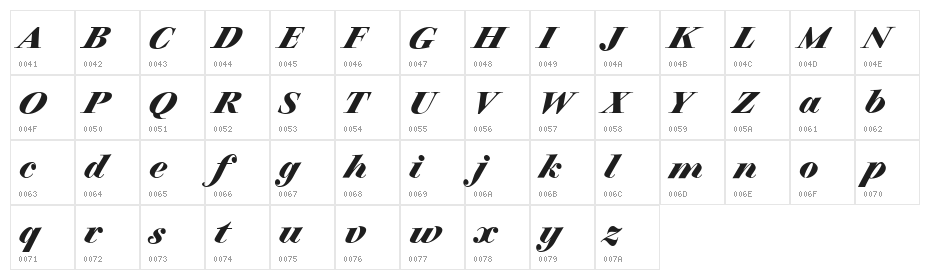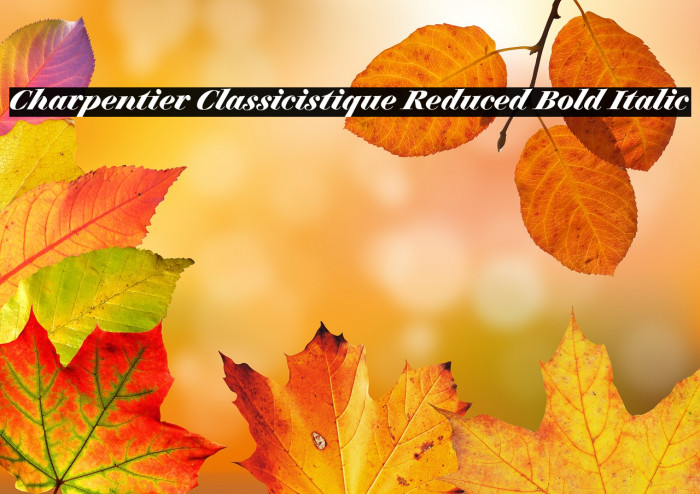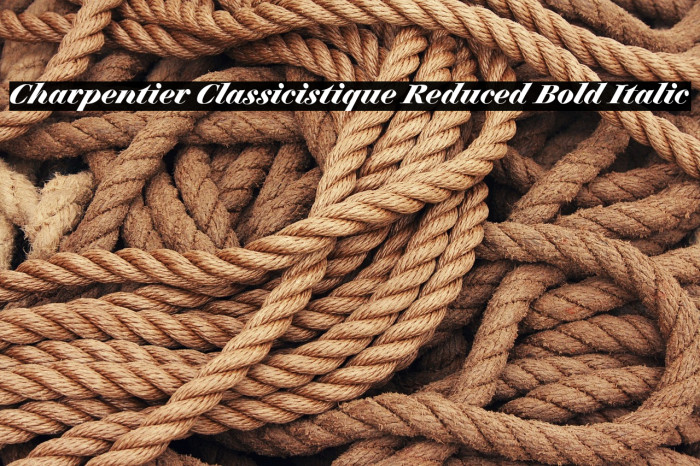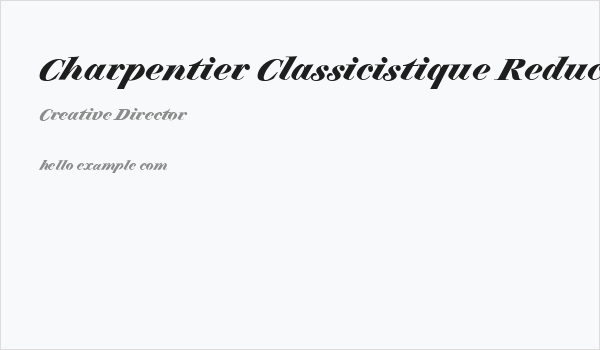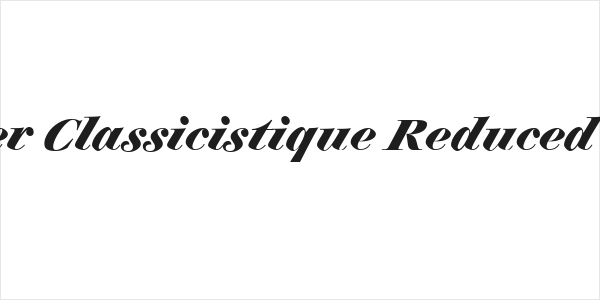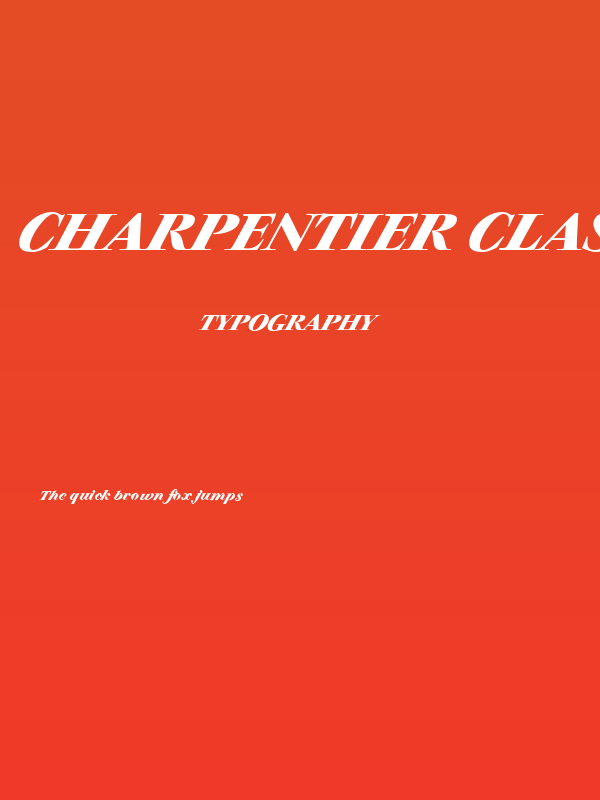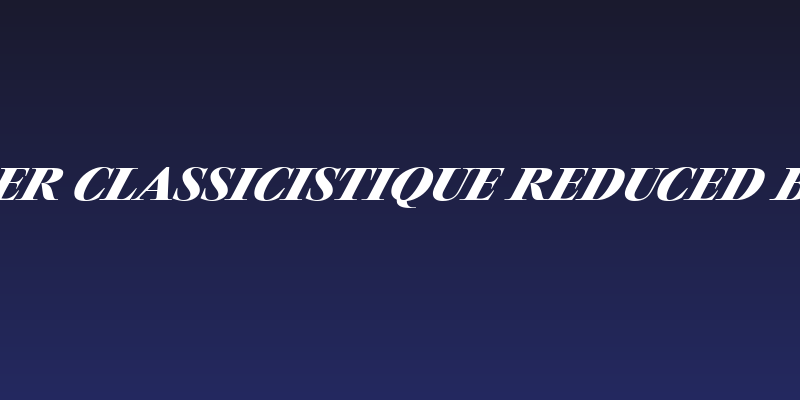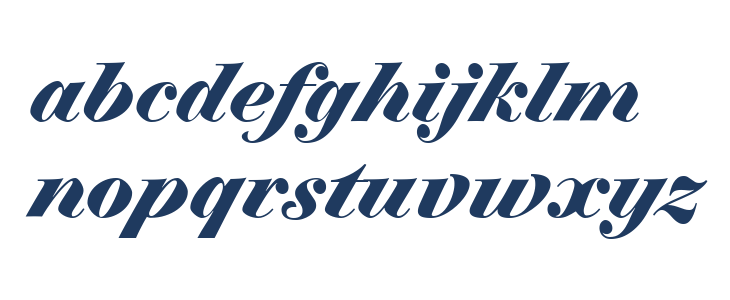
Charpentier Classicistique Reduced Bold Italic Font
Charpentier Classicistique Reduced Bold Italic Description
This font exudes a classic elegance with its bold and italicized style. The letters are characterized by their strong, sweeping curves and pronounced serifs, giving them a sense of movement and sophistication. The uppercase letters are particularly striking, with their elongated forms and sharp angles, while the lowercase letters maintain a graceful flow. The numbers and special characters are equally well-crafted, ensuring consistency across all glyphs. This font is ideal for projects that require a touch of refinement and tradition, yet it remains versatile enough for modern applications.
| Proposed Projects | Ideal for luxury branding, wedding invitations, editorial design, and high-end product packaging. |